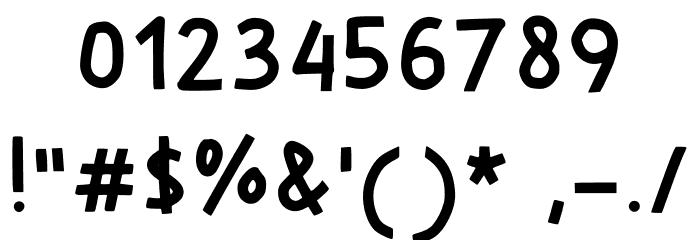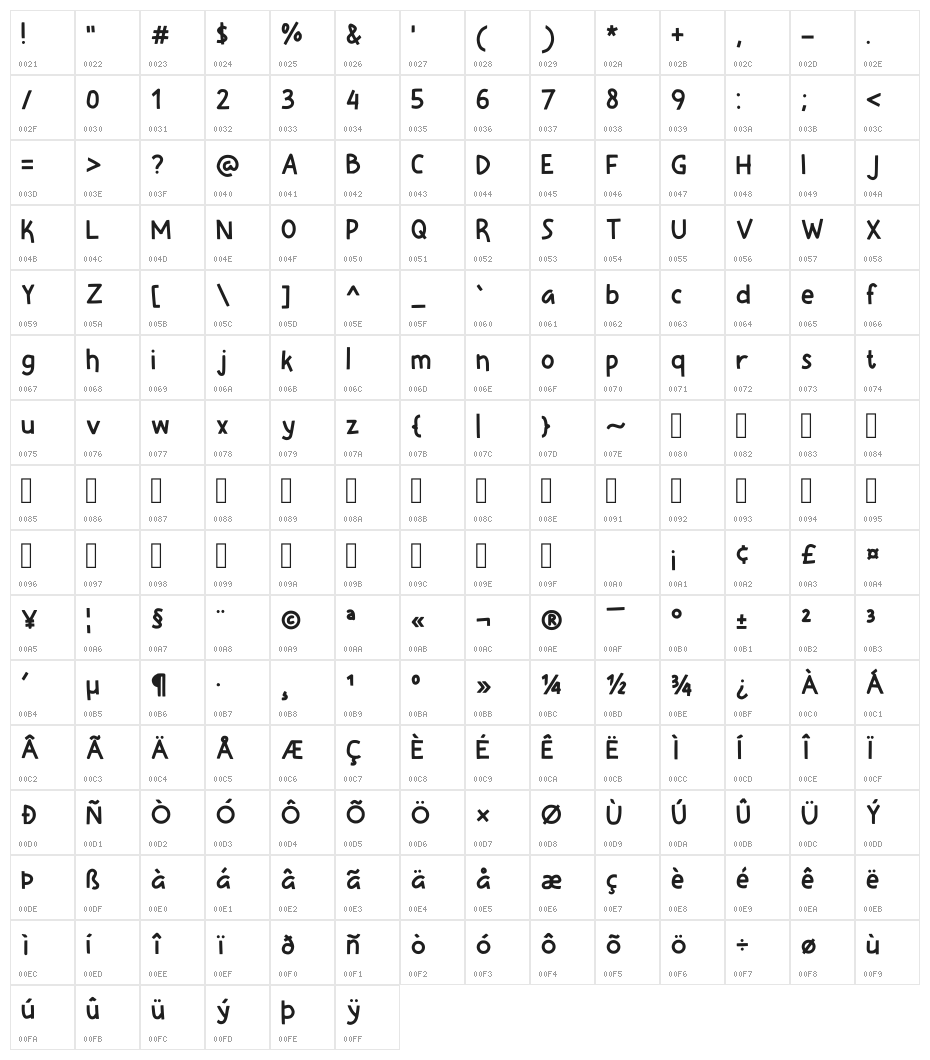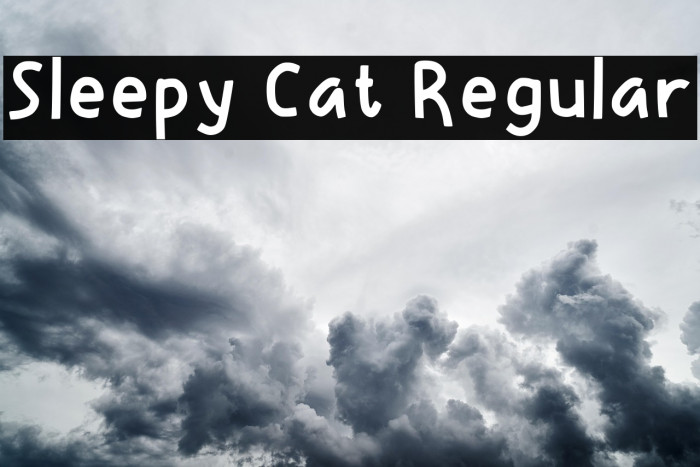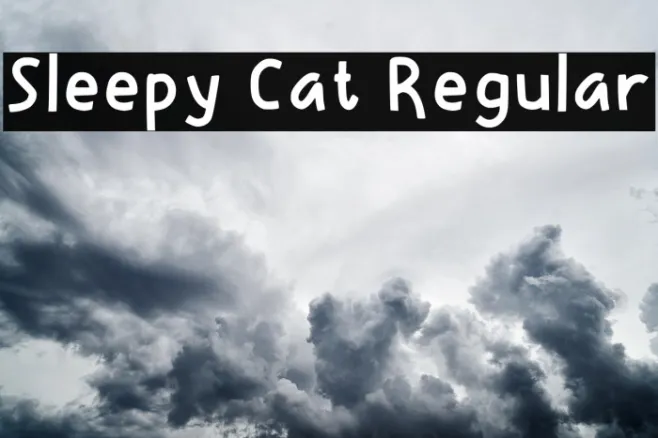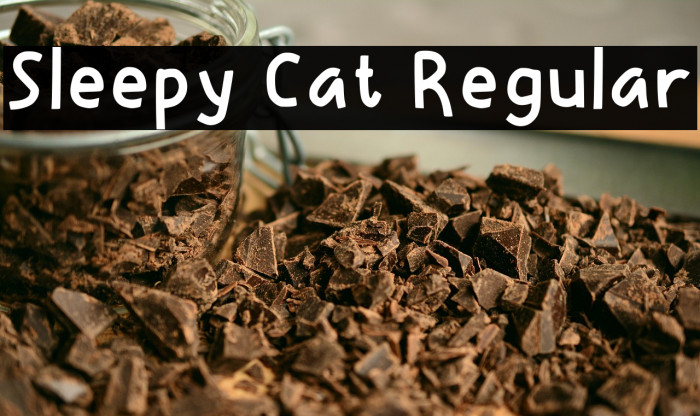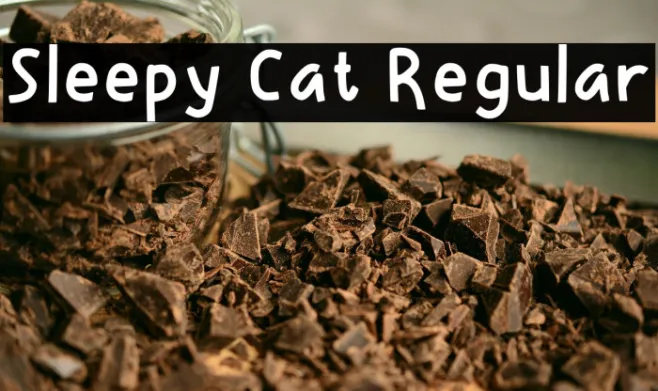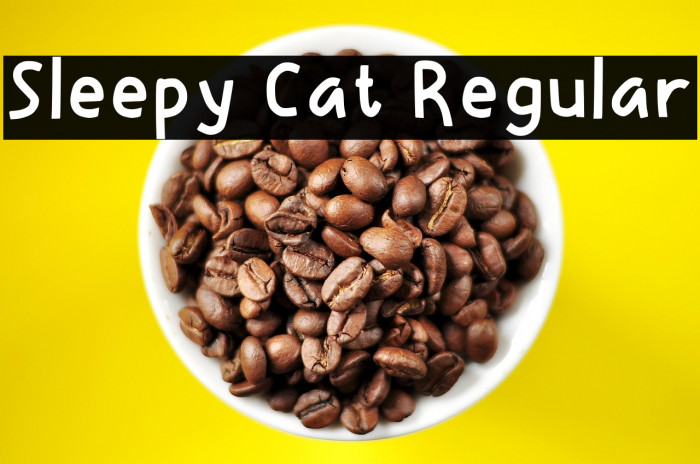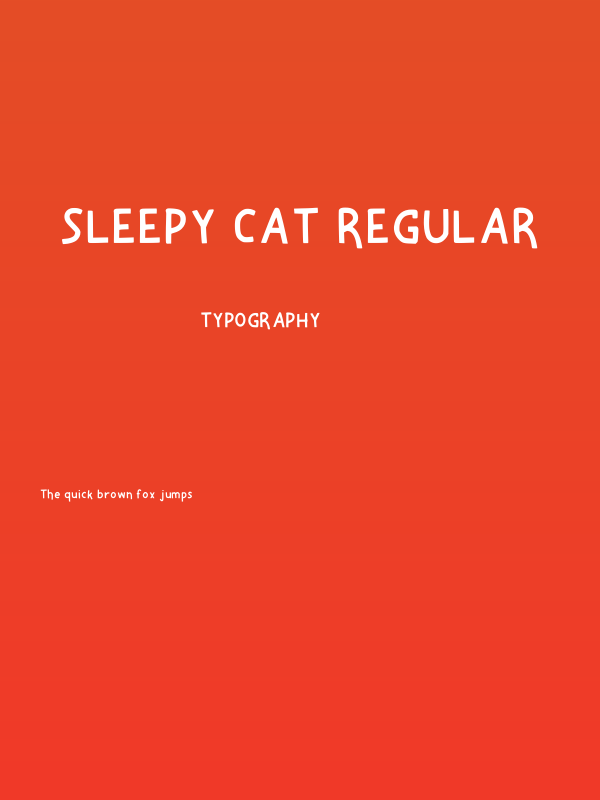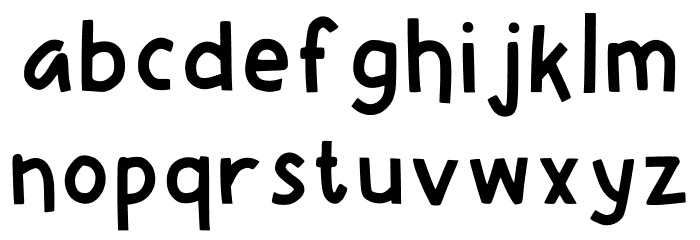
Sleepy Cat Regular Font
Sleepy Cat Regular Description
This playful and whimsical font features a handwritten style with a casual and friendly appearance. The characters are slightly irregular, giving it a charming and informal look. The strokes are consistent in width, providing a uniform appearance across all letters and numbers. The rounded edges and smooth curves contribute to its approachable and relaxed feel. This font is versatile and can be used in various creative projects where a personal touch is desired. It includes a full set of uppercase and lowercase letters, numbers, and a variety of special characters, making it suitable for a wide range of applications.
| Proposed Projects | Ideal for children's books, greeting cards, casual branding, and social media graphics. |